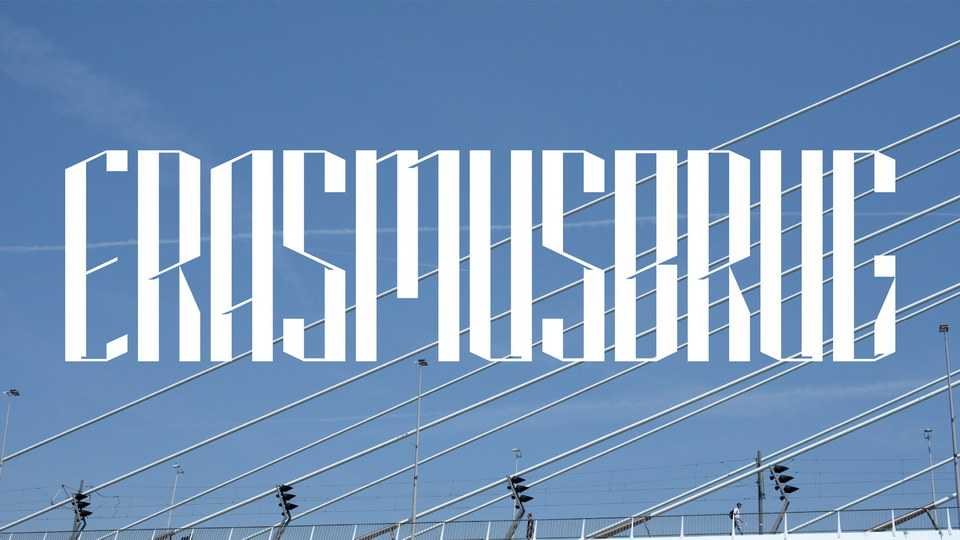
Download Erasmusbrug25 font, an architecturally inspired display typeface representing the Erasmus bridge in Rotterdam, Netherlands.
Designer: Daniel Dittmar